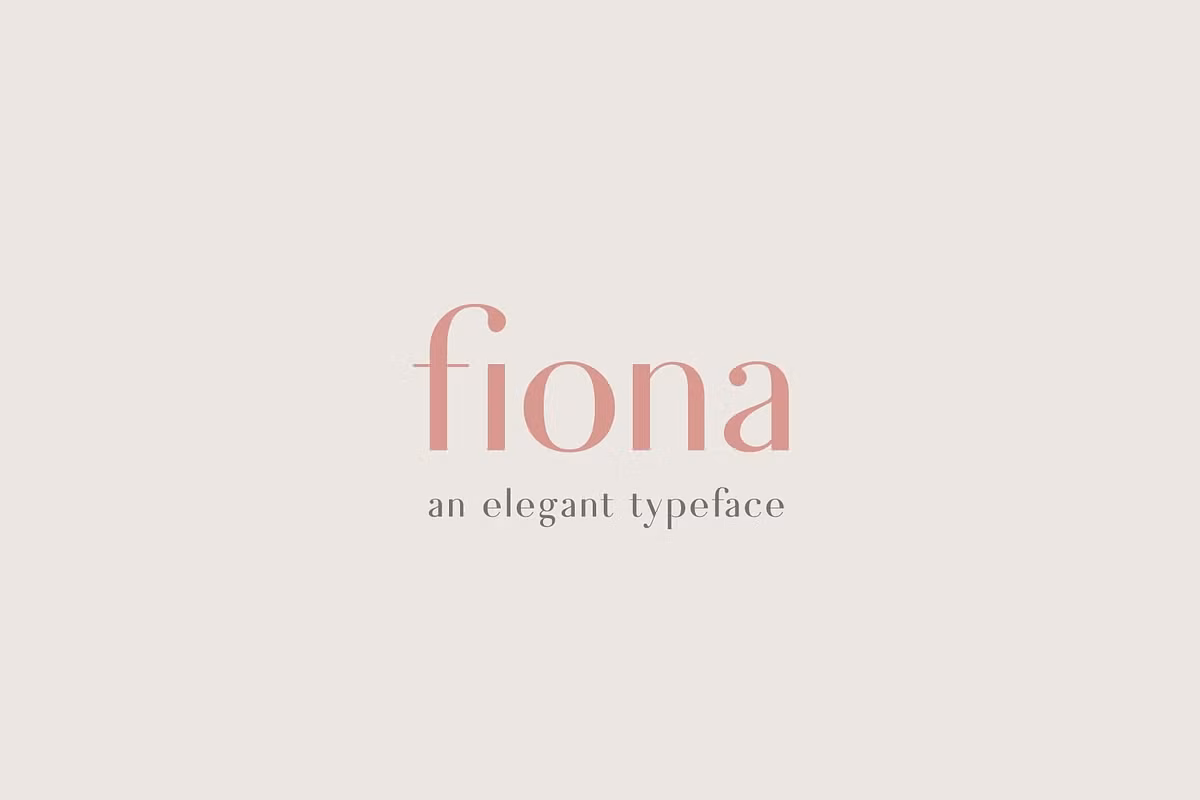
Fiona - An Elegant Typeface Free Download
Fiona Font Free Download is an elegant serif typeface designed to bring grace, refinement, and high-end style to your creative projects. With its slender curves, delicate serifs, and sophisticated rhythm, Fiona is ideal for fashion branding, wedding stationery, editorial layouts, luxury packaging, and modern website headers.
Crafted for designers who seek timeless beauty with a modern edge, Fiona Font Free Download offers the perfect balance of classic influence and contemporary flair. It stands out in both large headlines and smaller body text, making it a versatile choice for a wide range of applications.
Whether you're building a refined brand identity or designing upscale print materials, Fiona brings a polished, editorial feel to your work. It pairs beautifully with minimalist sans-serifs or stylish scripts for contrast and balance.